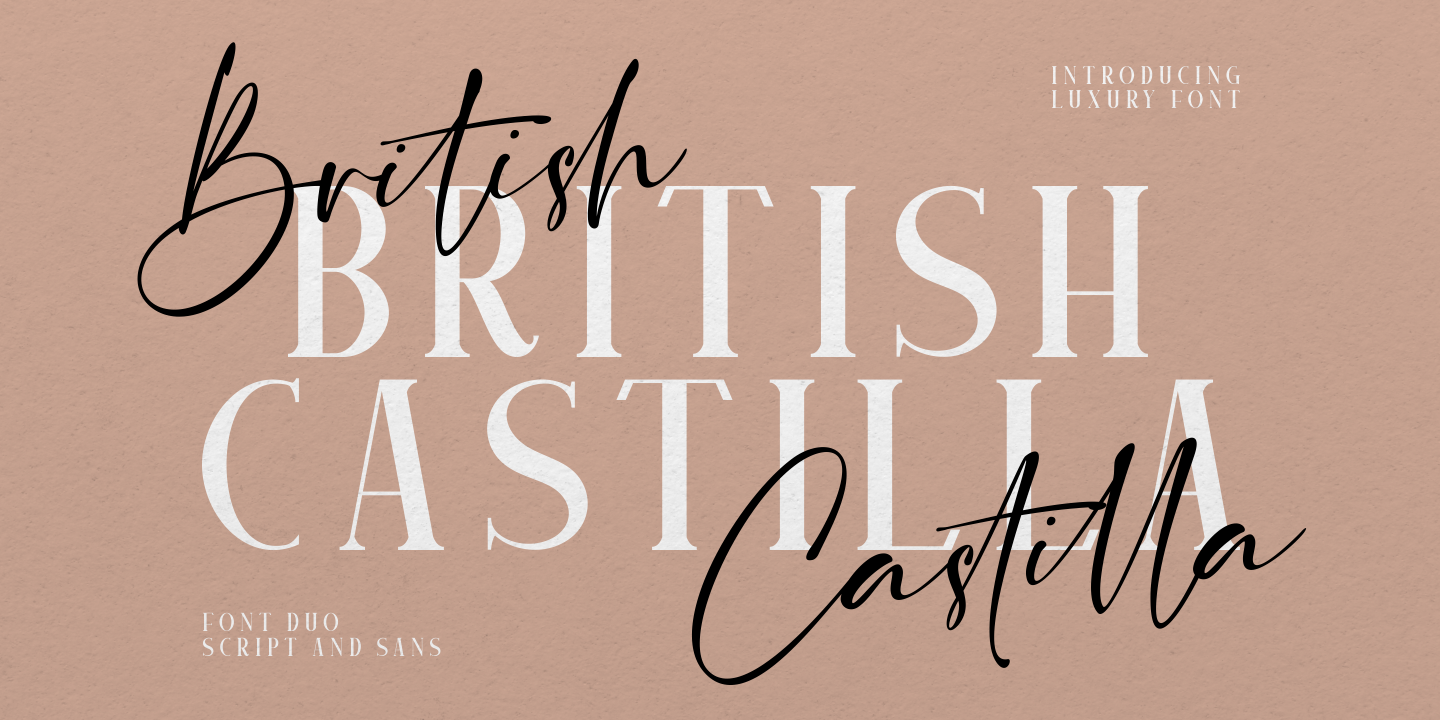
This aristocratic typeface is perfect for British heritage organizations, medieval castle tourism, royal event invitations, historical society publications, luxury estate branding, traditional British pubs, heritage conservation campaigns, and distinguished lifestyle marketing that requires regal sophistication and British authenticity with castle elegance and royal heritage credibility.
British Castilla Font is exciting because it magnificently captures the timeless grandeur and aristocratic heritage of British castles through its regally crafted letterforms that evoke the majestic stonework and noble traditions of medieval fortresses and royal residences. The font's distinctive character design and castle aesthetic reflect the world of British nobility and historical magnificence, making it perfect for heritage brands that want to convey royal authenticity, aristocratic sophistication, and the kind of castle elegance that appeals to audiences seeking genuine British heritage experiences and authentic royal cultural connections.
The British Castilla Font family includes heritage variations and royal styling options, featuring light, regular, medium, and bold weights, along with castle-inspired design elements and British royal alternates that provide heritage organizations and designers with comprehensive typographic tools for creating authentic British castle branding and distinguished royal communications.
Crown your designs with British Castilla Font Free Download, a typeface that brings royal castle elegance to contemporary British heritage and luxury branding projects. This exceptional font combines aristocratic tradition with regal functionality, making it an essential resource for heritage sites, luxury British brands, and designers working on royal heritage or castle tourism marketing campaigns. The regally crafted letterforms ensure distinguished readability while conveying the castle sophistication and British royal authenticity that defines this distinctly aristocratic and authentically British castle-inspired typeface.